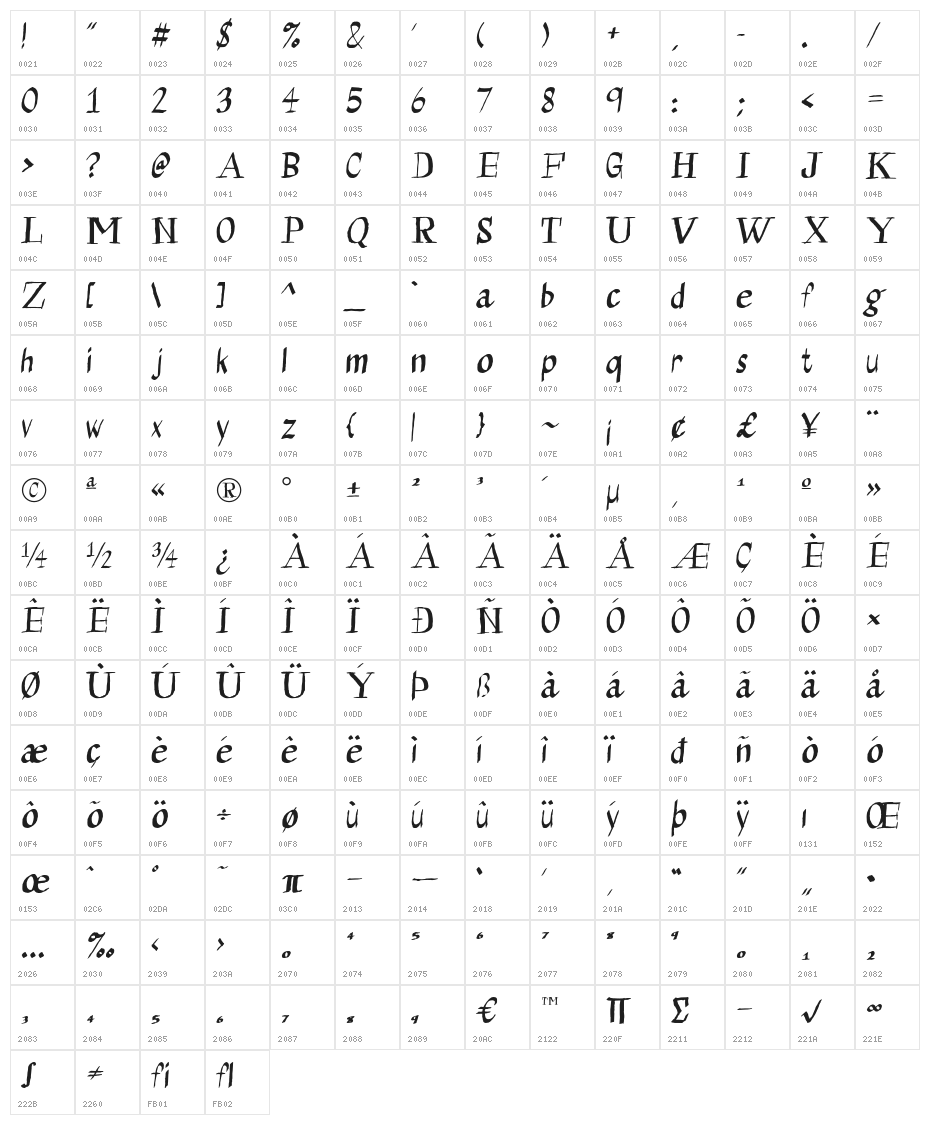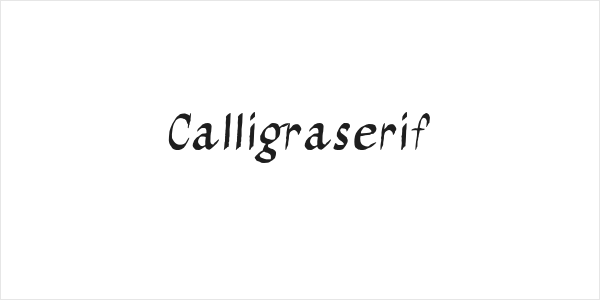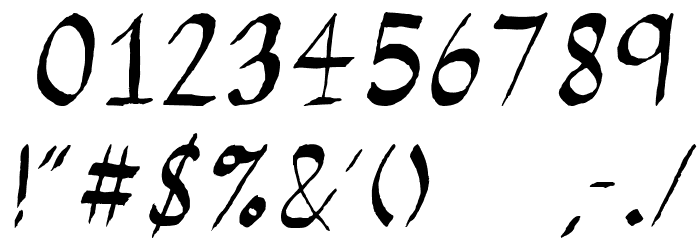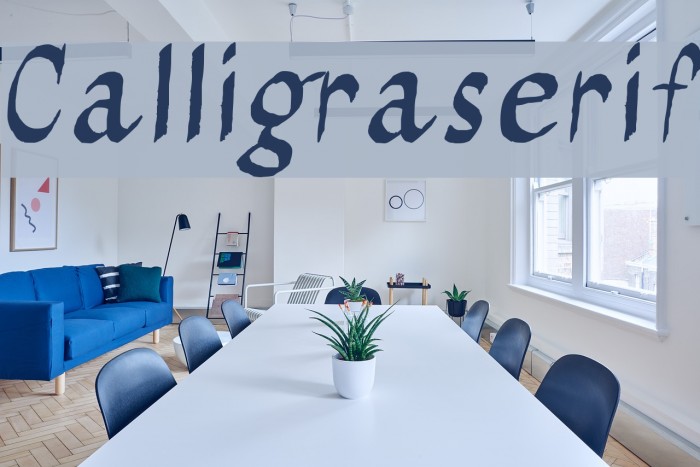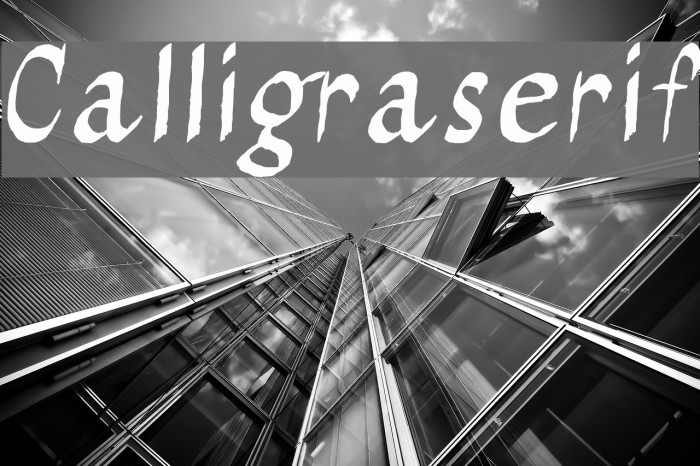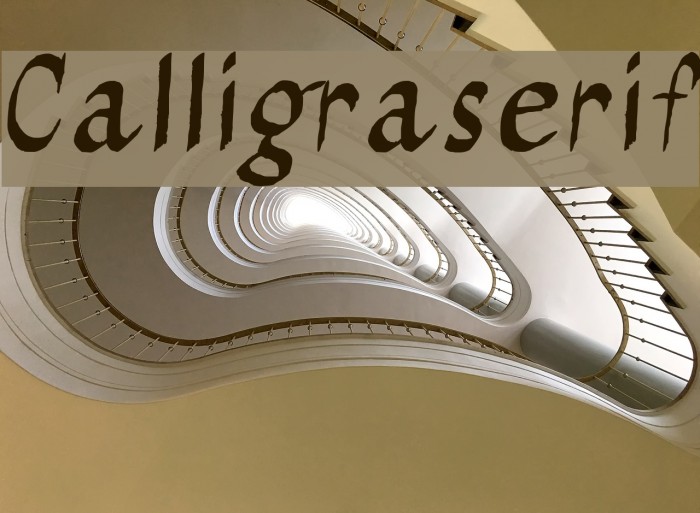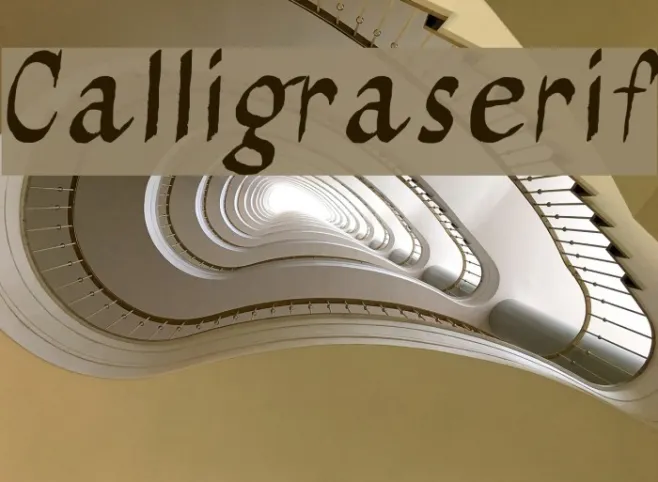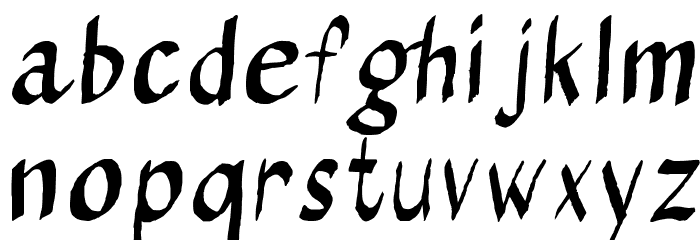
Calligraserif Font
Calligraserif Description
This font combines the elegance of calligraphy with the structure of serif typefaces, creating a unique and artistic appearance. The uppercase letters exhibit a distinct flair with varying stroke widths, giving them a dynamic and expressive quality. The lowercase letters maintain a consistent style, with some characters featuring exaggerated loops and curves that enhance their visual appeal. The numerals are bold and clear, ensuring readability while maintaining the font's artistic essence. Special characters are thoughtfully designed to complement the overall style, making this font versatile for various applications.